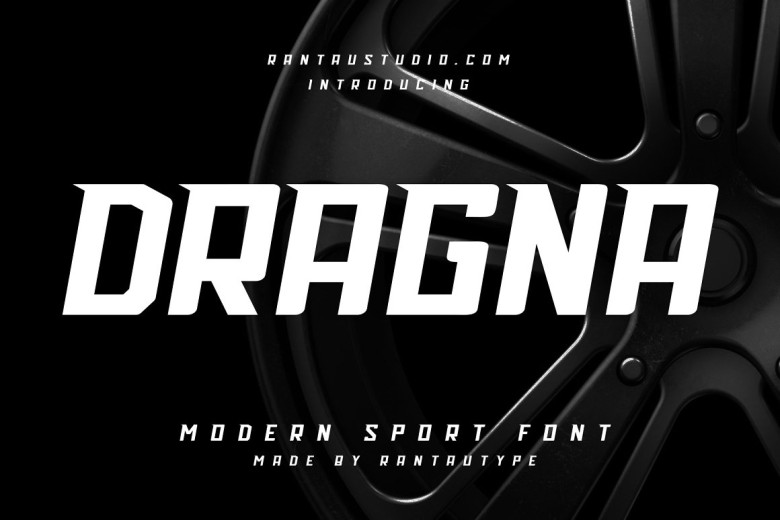
Dragna Font
Dragna features italics, wide letters and an inviting dynamic slant, making it perfect for sporting headlines, logos esports teams and monograms of automotive games or any dynamic modern text. Dragna can help you achieve high-level work.
Dragna Bold Display Font